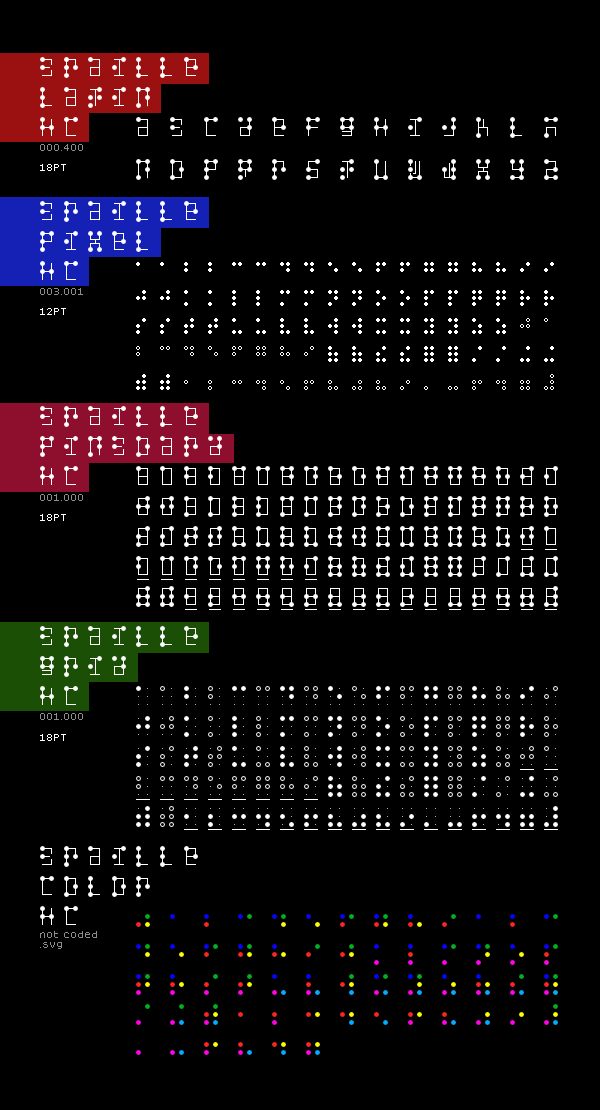
Braille HC is a work-in-progress family of typefaces based on the Braille language. Four styles [ Pixel, Pinboard, Grid, Latin ] and a color .svg to be developed.
Braille Pinboard HC